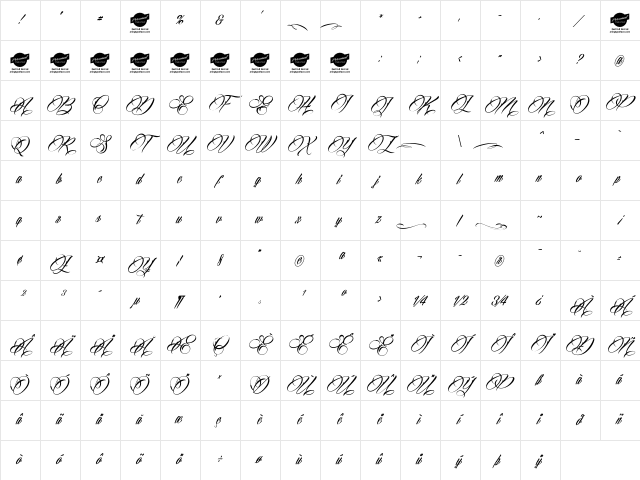
Complete Billion Stars Personal Use Regular glyph index. Displaying only characters natively supported by Billion Stars Personal Use Regular font.
Billion Stars Personal Use is a composed and adaptable typeface that performs quietly and consistently across a wide range of design contexts.
Who designed the Billion Stars Personal Use Regular font?
This font was published by M Greb. Check the technical specs section for copyright and designer details.